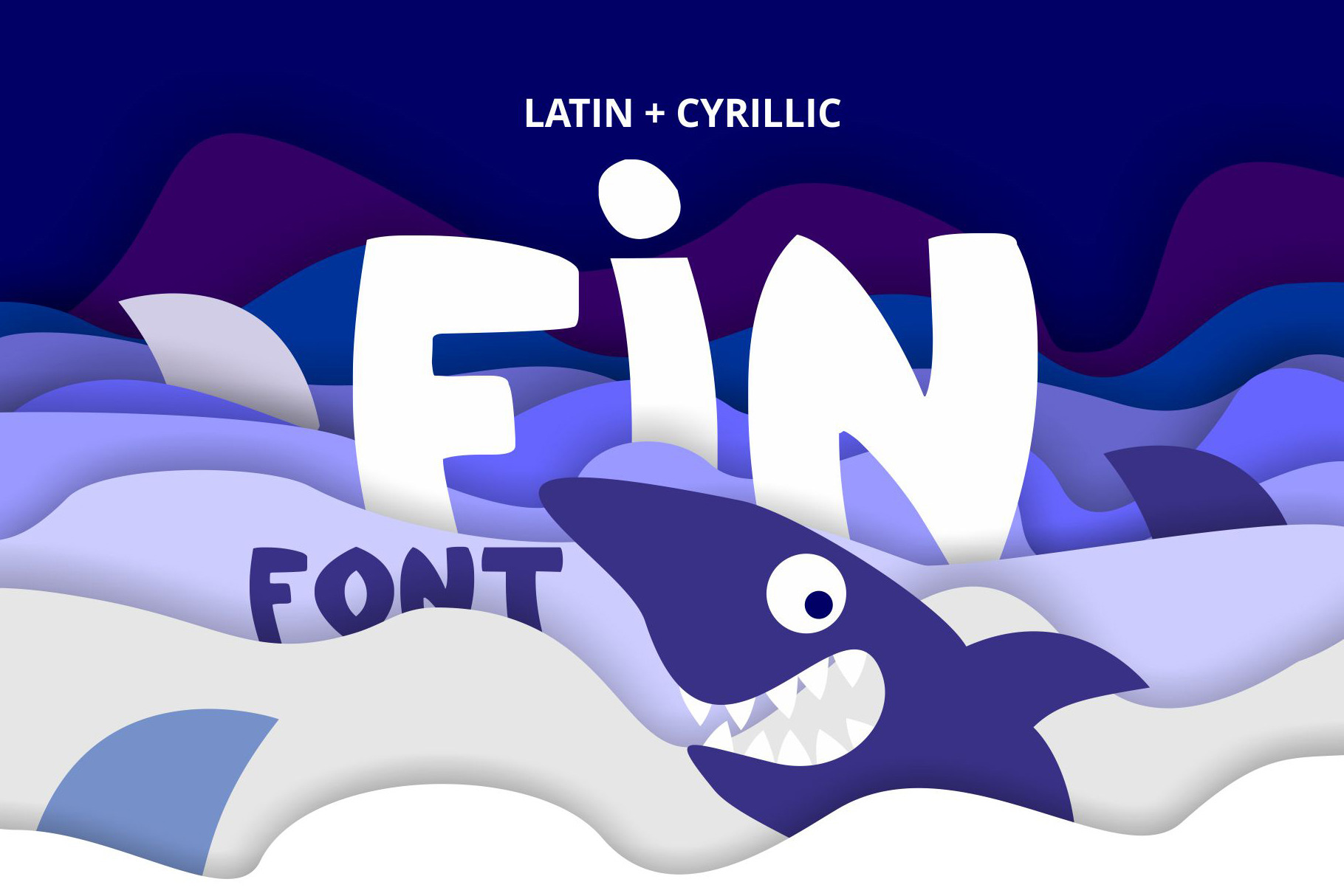
Fin Font
I'm glad to present you my new children font – FIN with latin and cyrillic letters! Shark fin shape inspired me to create this font. FIN font contains latin and cyrillic letter sets, numerals and punctuation. This font work nicely for all sorts of things including t-shirt design, typographic art, social media images and so much more!
Font features: Standard characters A-Z, 0-9, and punctuation for the Latin Basic and Western European set, Cyrillic А-Я set. Enjoy!